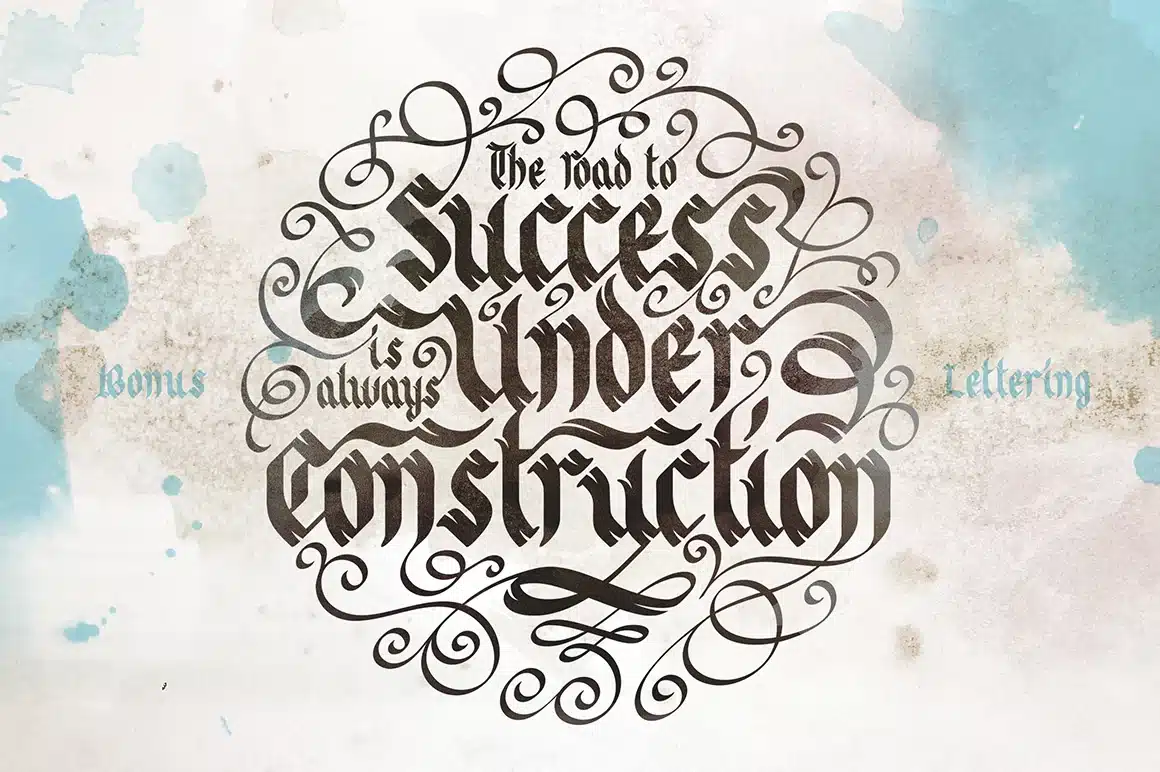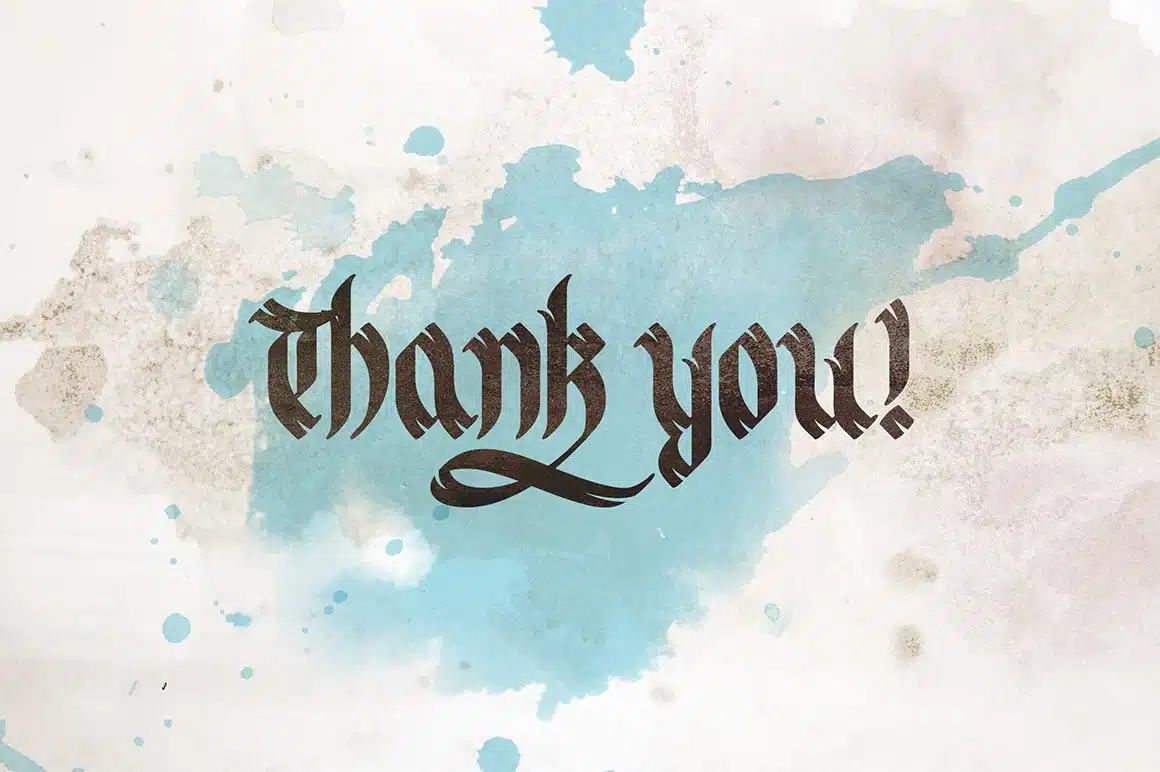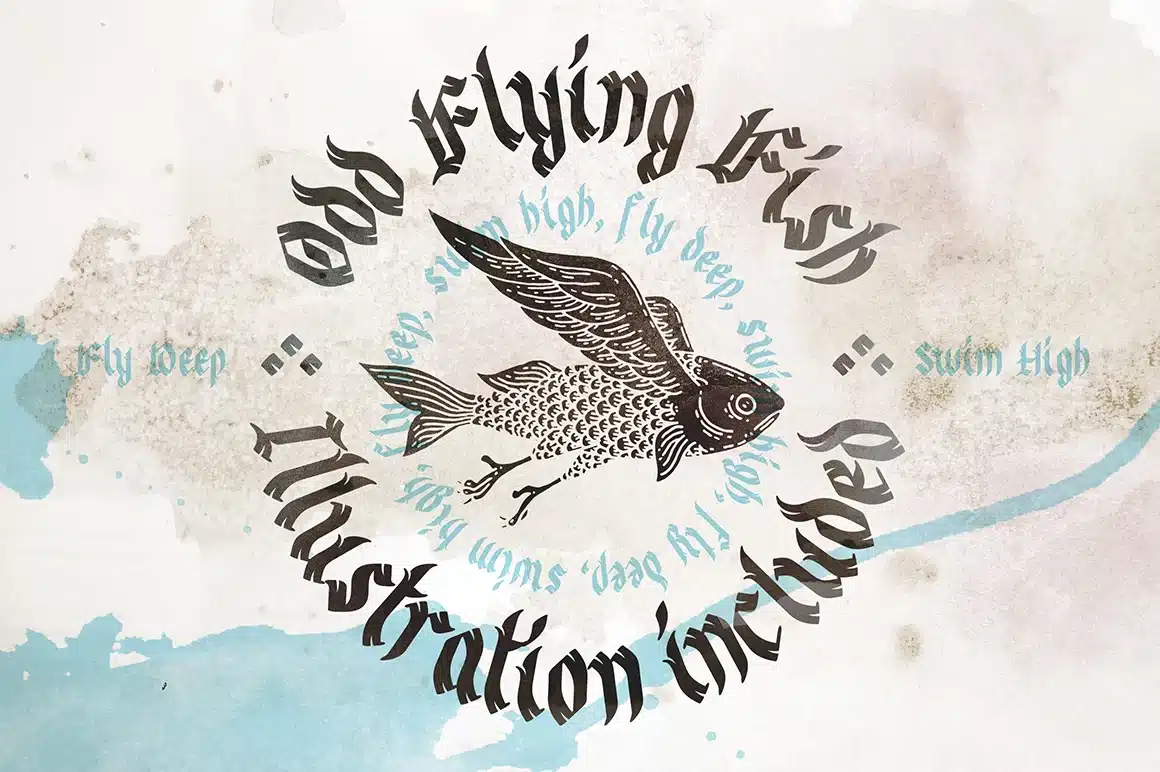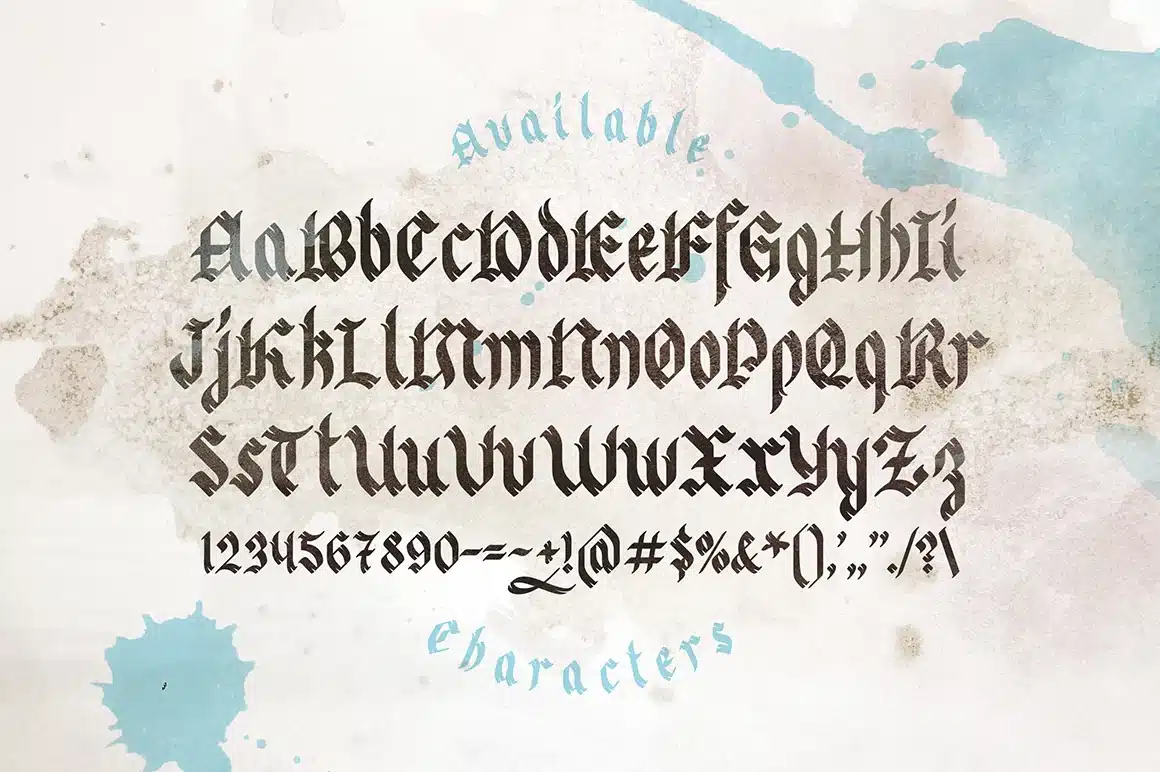
Odd Times Font
Introducing medieval blackletter typeface "Odd times". It's inspired by old fracture calligraphy.
Note: the swash from first screenshot is hidden in underscore "_" character.